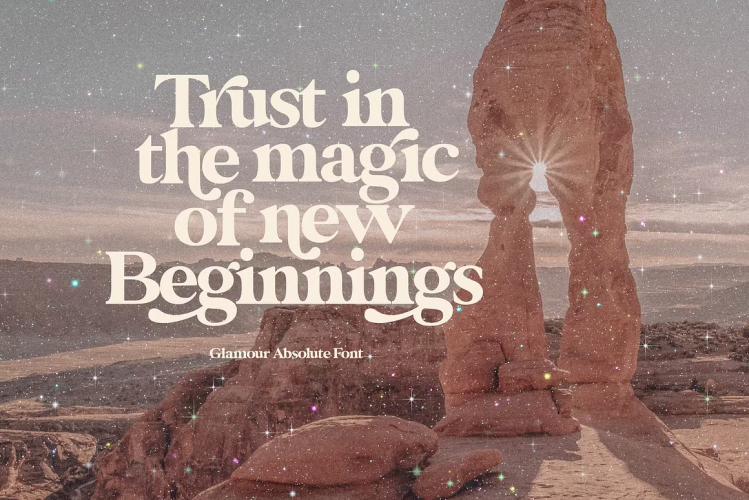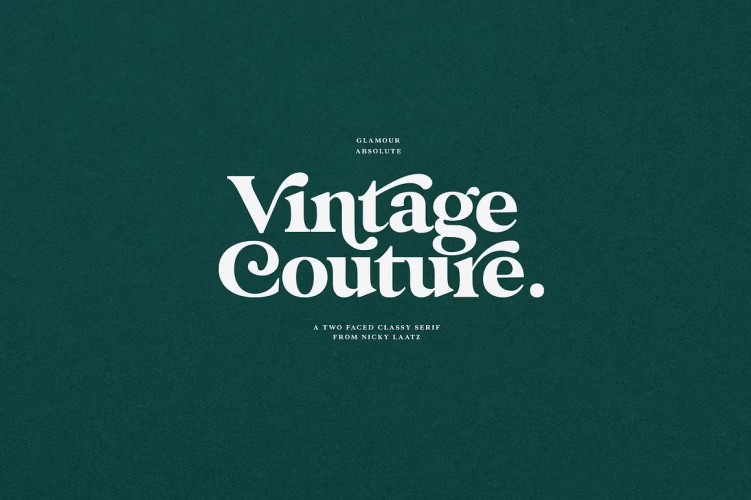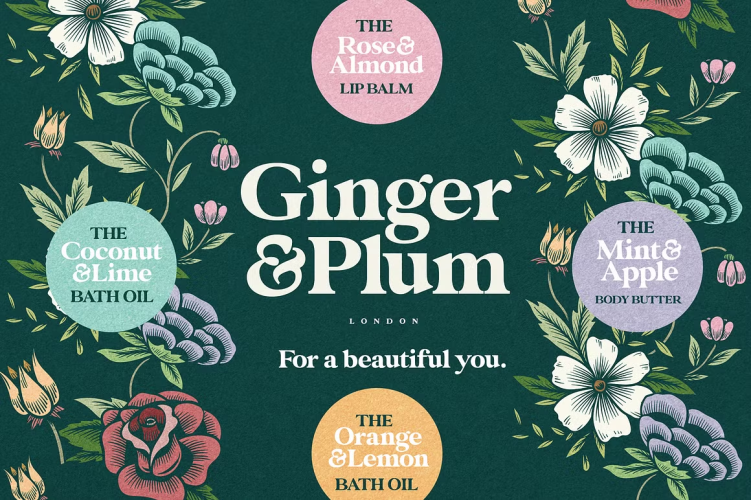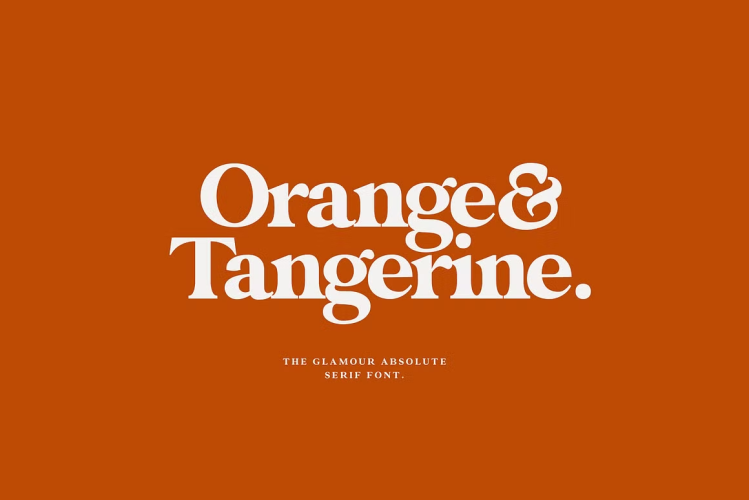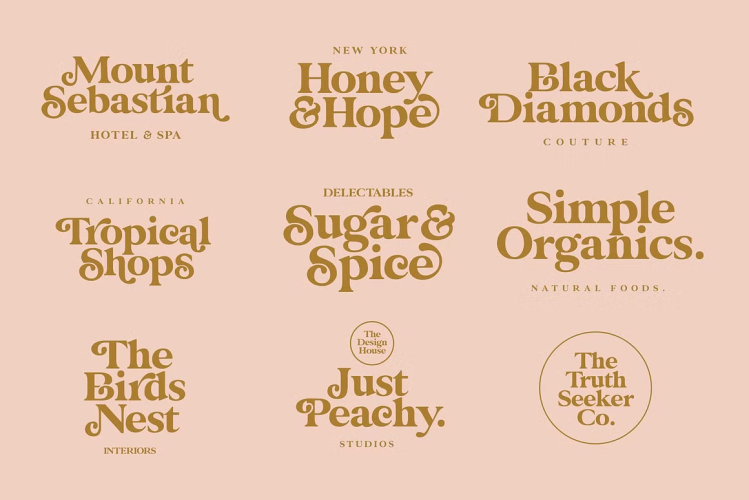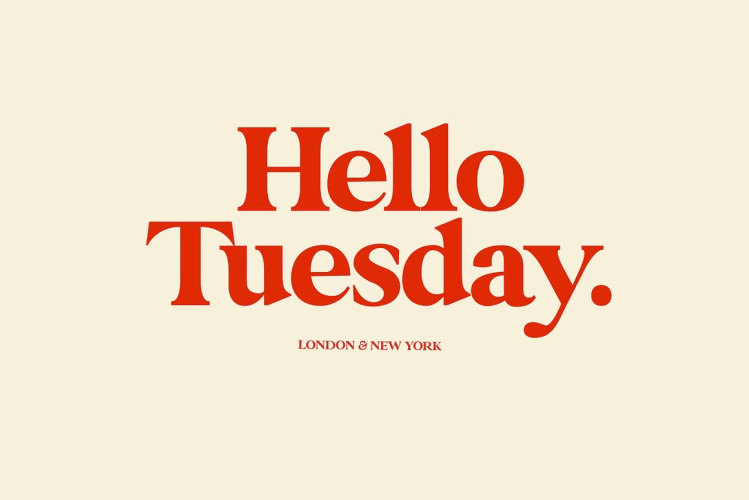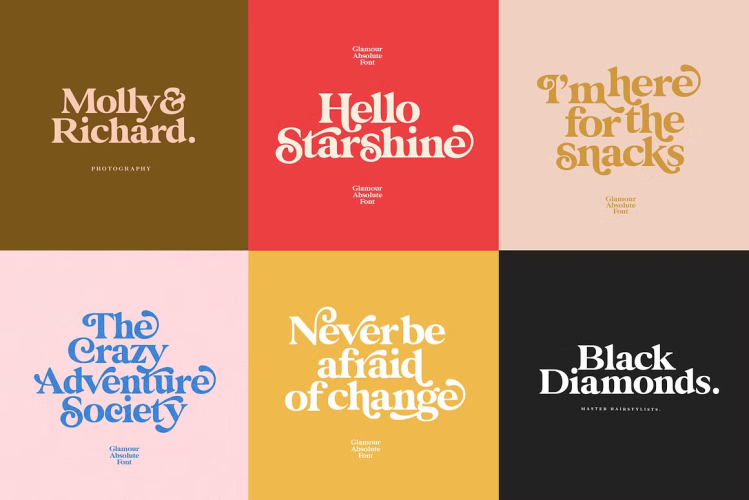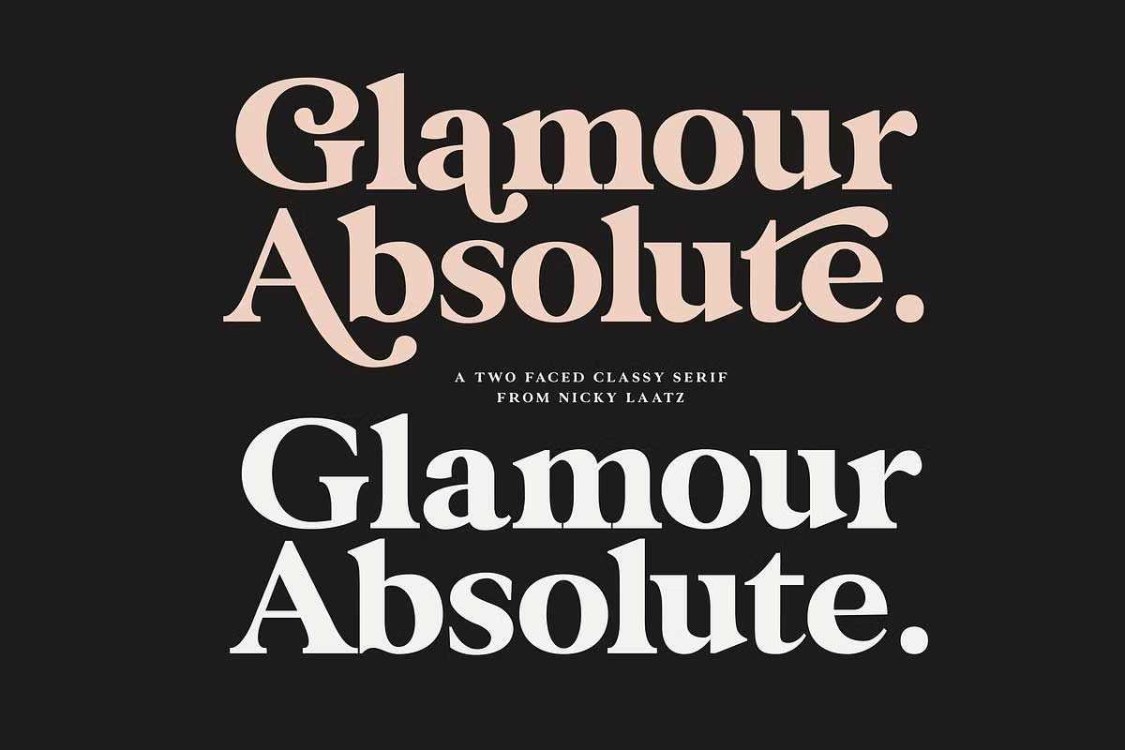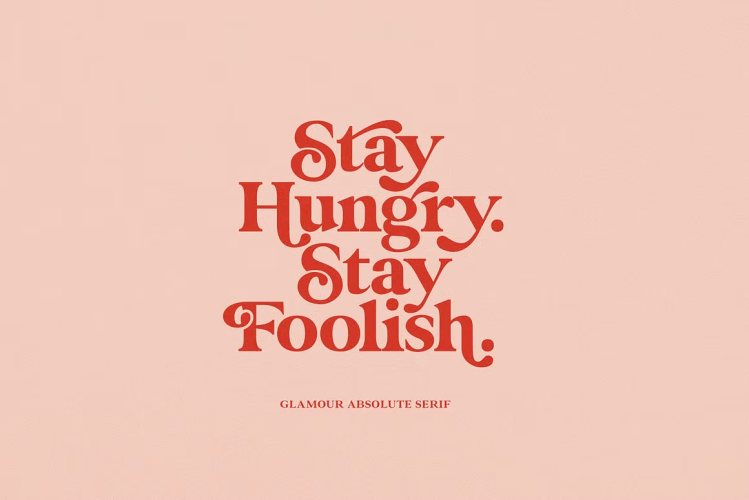
Glamour Absolute Font
Introducing “Glamour Absolute Font” – A new “two-faced” bold serif with modern and vintage curves. A Two-faced Beauty: Modern or Vintage You can use your font’s OpenType…
Introducing “Glamour Absolute Font” – A new “two-faced” bold serif with modern and vintage curves.
A Two-faced Beauty: Modern or Vintage
You can use your font’s OpenType features to achieve a vintage retro text style. This will make you able to pick from a lot of options of alternate letters and ligatures, hence you can choose the one which suits you best. In the case of a light or heavy vintage vibe, you can change the forms of the letters in a way that suits a particular style. The longer you make changes, the more dramatic the aftermath will be.
If you are going Modern Chic, Just type with regular letters Play with your letter spacing to add even more class to your designs.
Due to its split personality, Glamour Absolute is a versatile font, covering many project types, from bold magazine imagery to wedding invitations to branding, poster design, and so much more.
Where Glamour Absolute Font works best
Glamour Absolute Font gives long-form text a classic, trustworthy rhythm — ideal for magazine spreads, annual reports and book interiors.
Pair Glamour Absolute Font with generous letter-spacing for wordmarks in fashion, hospitality, wine and jewellery branding.
Use Glamour Absolute Font for slide titles in Keynote, PowerPoint or Google Slides to add authority without looking dated.
What is Glamour Absolute Font good for?
Glamour Absolute Font is a Serif Fonts typeface tagged Bold, Branding, Elegant, Modern. It works well for headlines, logos, posters, social media graphics and branding projects that need a distinctive serif fonts look.